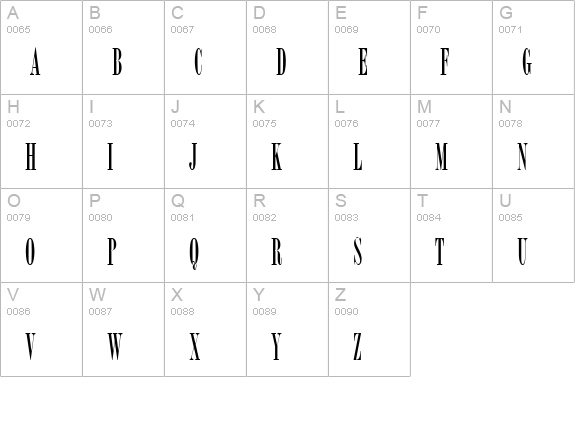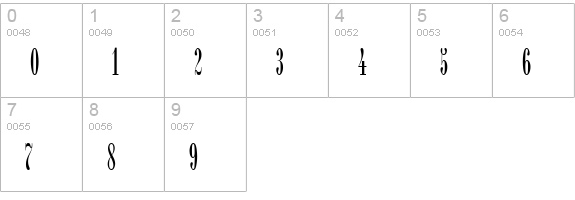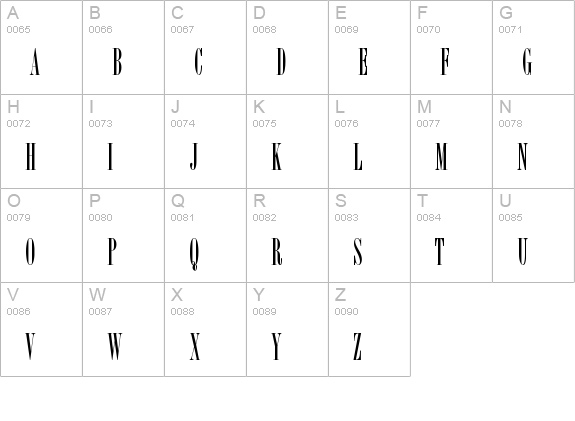
Bordeaux Roman Bold Plain is a strong, high-contrast variant in the Bordeaux typeface family \xE2\x80\x94 well suited to headlines, attention-grabbing titles, and strong calls-to-action.
Bordeaux Roman Bold Plain font is a stunning and versatile typeface that exudes elegance and sophistication. Its bold and classic design makes it perfect for a variety of design projects, from branding to editorial layouts. The clean lines and sharp edges of this font give it a modern yet timeless appeal. What sets Bordeaux Roman Bold Plain font apart is not only its striking aesthetic but also the fact that it is available for free download at FontsMarket.com. This means that designers and creatives can easily access and use this high-quality font without any cost, making it a valuable asset for any project. Whether you're working on a logo, poster, website, or any other design project, Bordeaux Roman Bold Plain font is sure to make a bold statement and elevate your work to new heights. Download this exceptional font for free today and add a touch of sophistication to your designs.